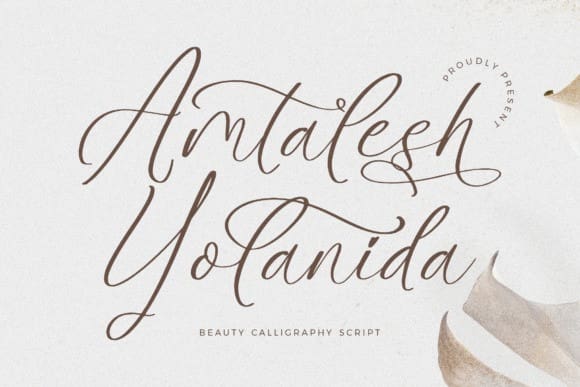
Amtalesh Yolanida Font
Amtalesh Yolanida Font is a dazzling script font. This font is neatly crafted and highly detailed. Whatever the topic, this font will be a wonderful asset to your font library, as it has the potential to enhance any creation.